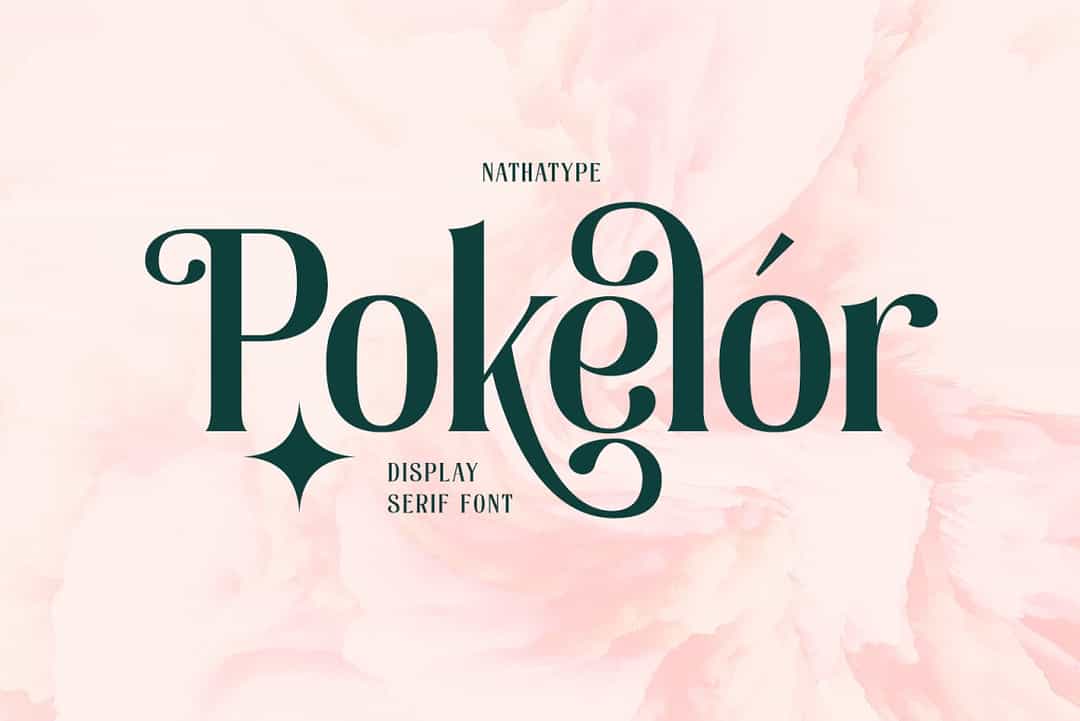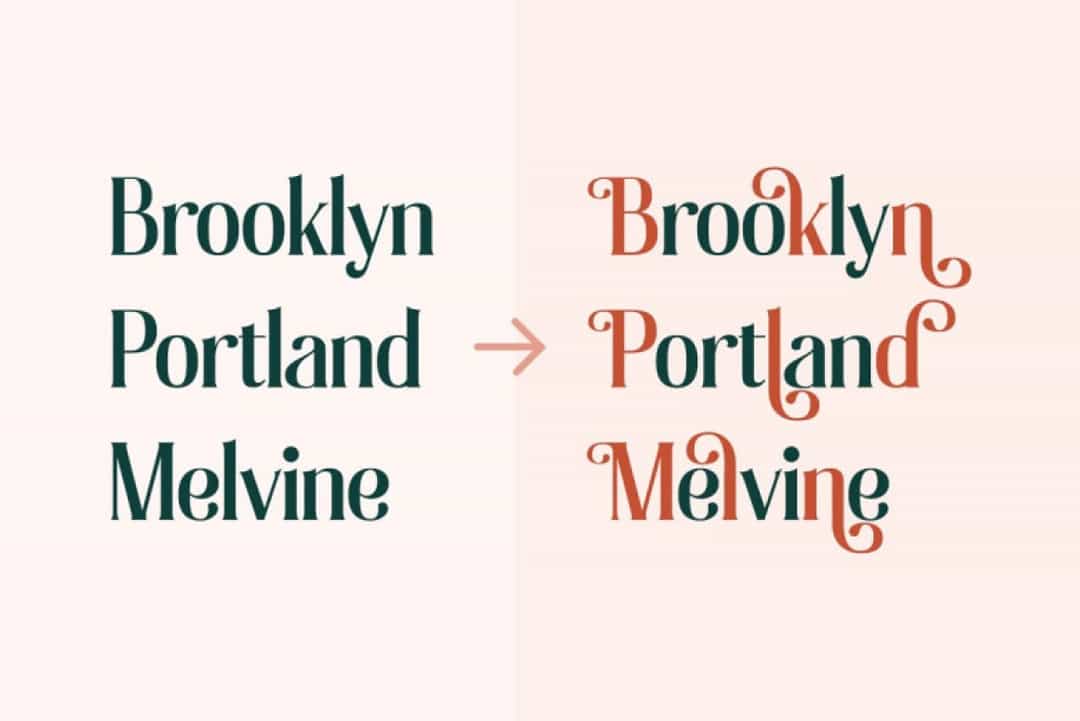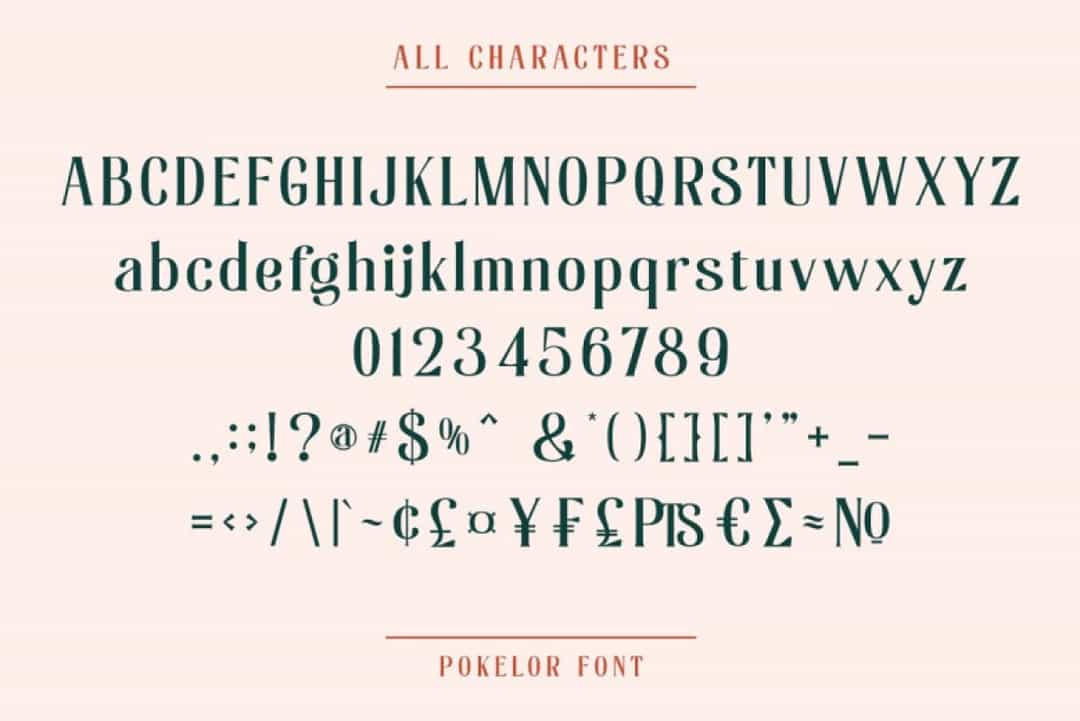
“Pokelor” is an e-mailable serif font carefully designed and crafted by expert designers that combines aesthetics and function, giving stylish modern appearances while remaining more informal in tone. Small hooks with synchronization features help your eyes move between letters more freely.